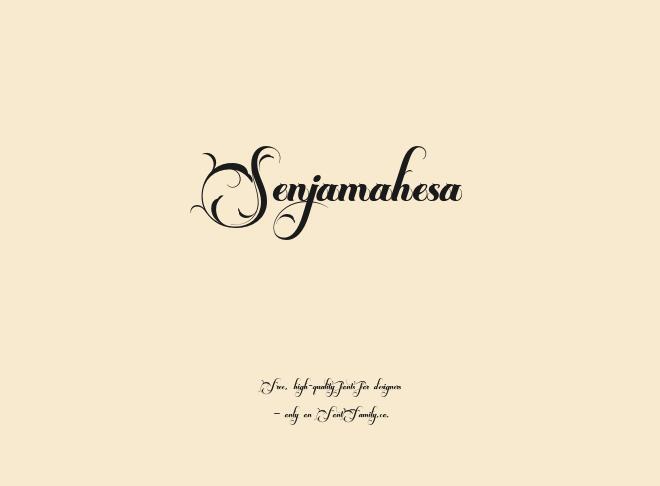
Senjamahesa Font
The Senjamahesa Font, designed by Senja Design Studio, is a modern script typeface that blends playful elegance and handwritten aesthetics. With its smooth curves and flowing letterforms, Senjamahesa Font is perfectly suited for logo design, branding, wedding invitations, and other creative projects. The font stands out with its unique character, making it a great choice for those looking to add a personal touch to their designs. Its modern, playful style sets it apart from traditional script fonts, offering a fresh, contemporary feel. The Senjamahesa Font is free for personal use, making it an excellent resource for designers and those seeking to elevate their creative projects with a touch of elegance and modernity.